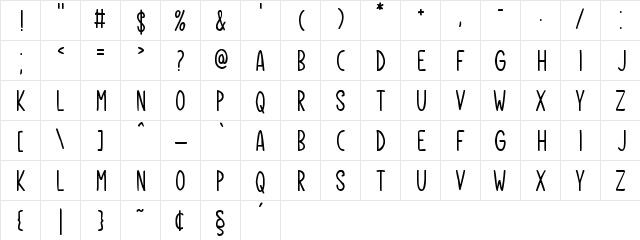
Single Step - Free For Personal Regular
Design Context for Single Step - Free For Personal Typeface
Single Step - Free For Personal takes a measured approach to typography — its balanced proportions and neutral character make it a reliable workhorse for both digital and print work.